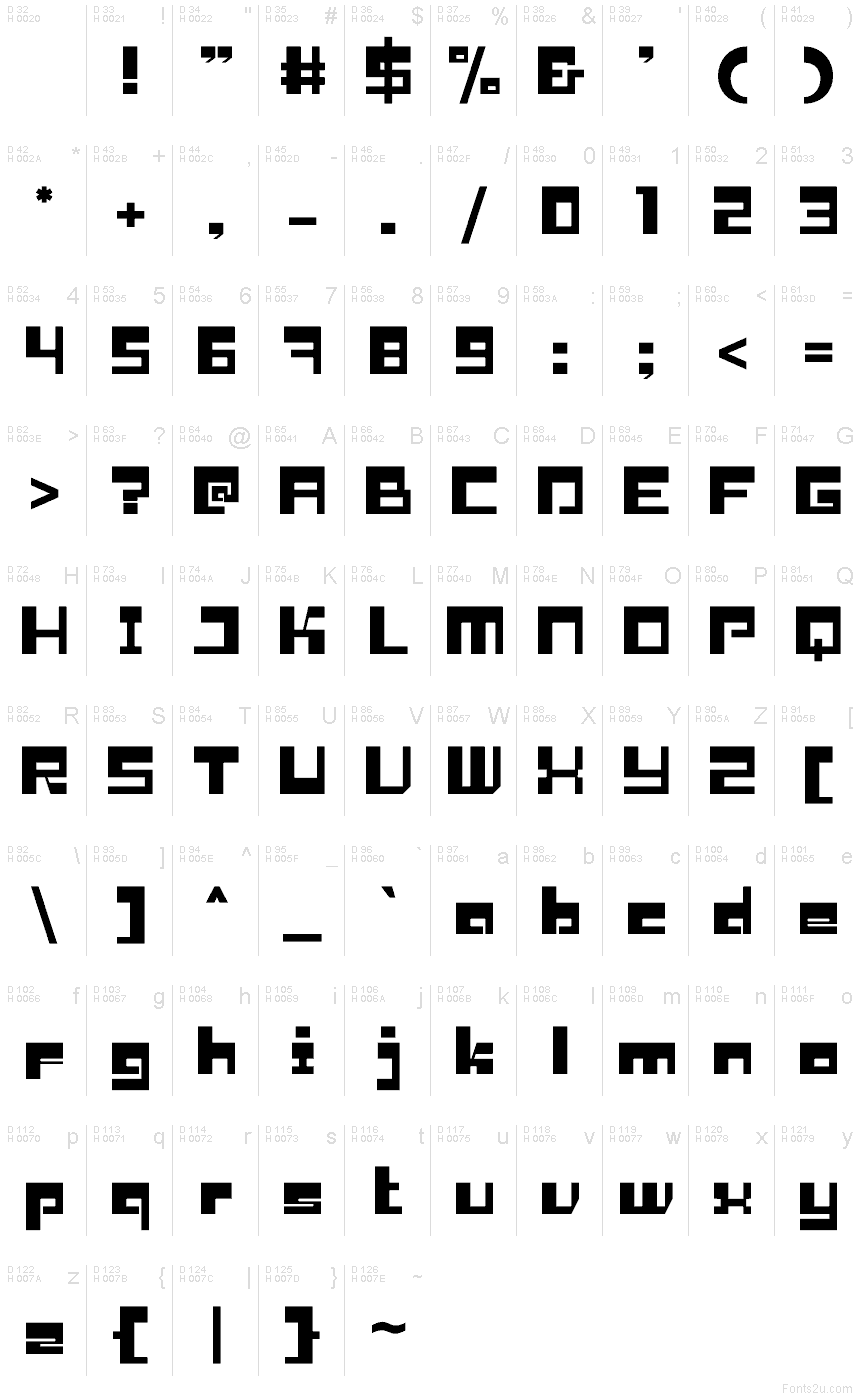
Rocketron
Rocketron font by Sronstudio is a free techno display typeface that looks like it was carved from solid, matte-black blocks. Its chunky, squared forms and tight, grid-like rhythm give every word a heavy, futuristic presence, as if it’s glowing on an old-school arcade cabinet or stamped onto the side of a spaceship. The horizontal cuts and boxy counters keep the texture clean and mechanical, so even bold titles stay legible and punchy at a glance.
Using Rocketron font, you can push sci-fi and gaming themes without resorting to clichés: it shines on game logos, esports branding, techno or EDM flyers, app splash screens, YouTube thumbnails, and bold poster work. This free font thrives at large sizes, where the rigid geometry really locks in, and pairs smoothly with a simple geometric sans in smaller text to keep layouts sharp and readable.